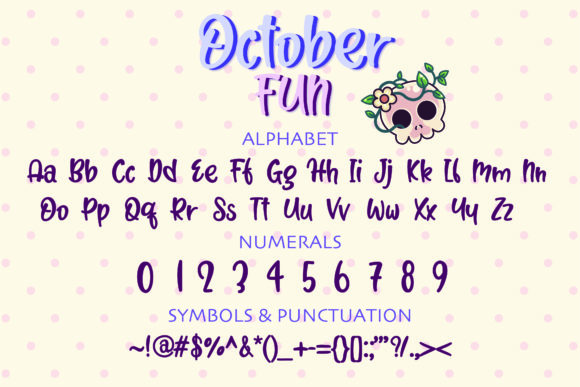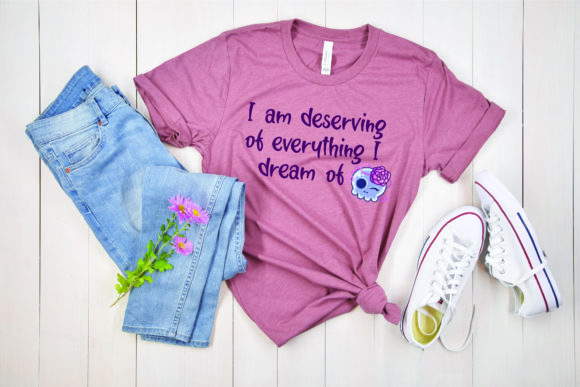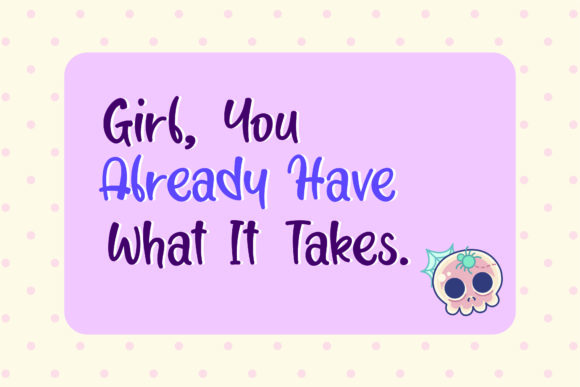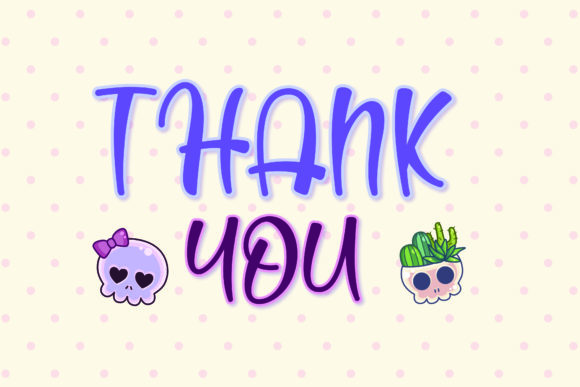
Introduction to October Fun Font Font
Fonts play a crucial role in design, and the October Fun Font font is a typeface that brings both character and versatility to any project. Whether you’re working on a branding project, a website, or a print design, the October Fun Font font offers a unique style that can elevate your work.
| 📌 Font Name | October Fun Font |
| 👤 Author | GoodMoodType |
October Fun is a cute and playful handwritten font.
It will elevate a wide range of crafting ideas, from cards, to branding, labels and much more .
Key Features of October Fun Font Font
Why Choose October Fun Font Font?
The October Fun Font font is more than just a typeface – it’s a design tool that helps you communicate your message with style and clarity. Its unique character set and versatile design make it suitable for a wide range of applications, from elegant invitations to bold headlines.
With its carefully crafted letterforms and balanced proportions, the October Fun Font font ensures readability and visual appeal across all mediums.
What makes October Fun Font font special?
The October Fun Font font stands out with its unique design, exceptional readability, and versatility across various design applications.